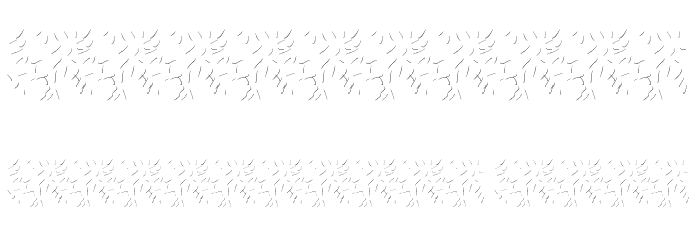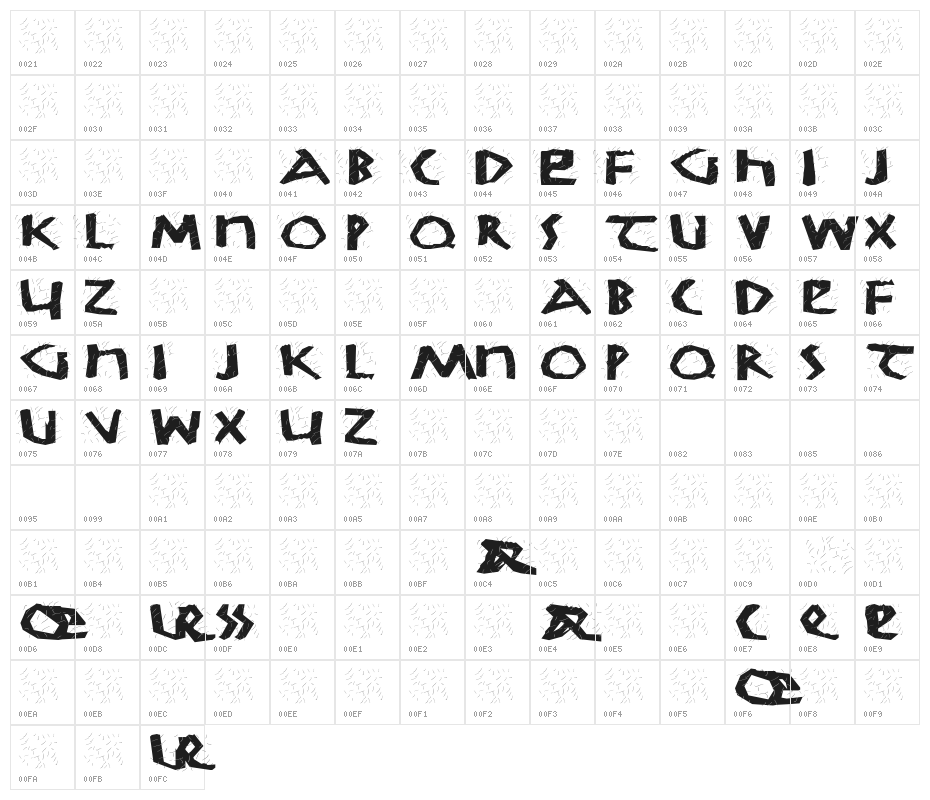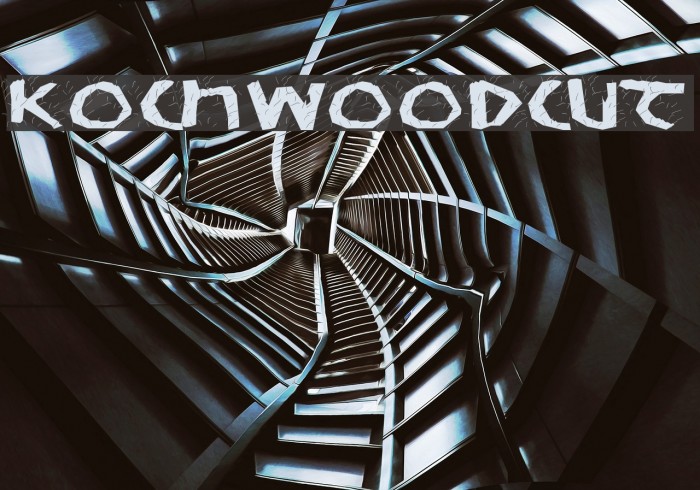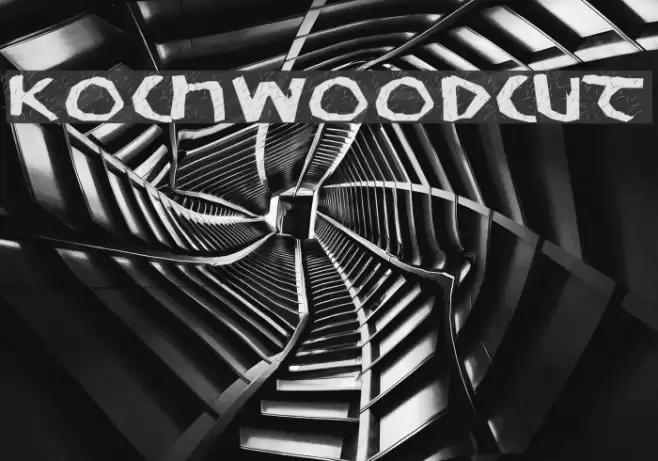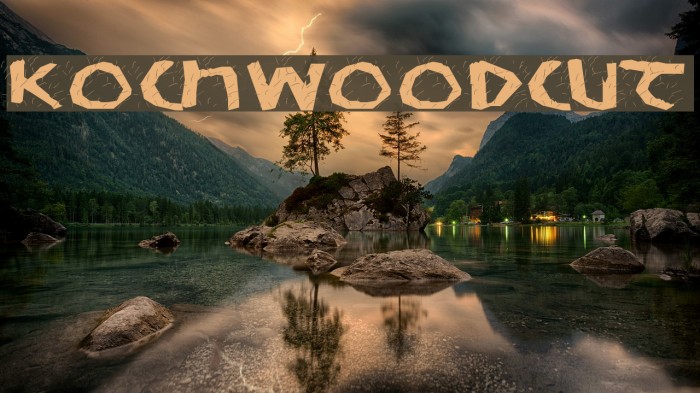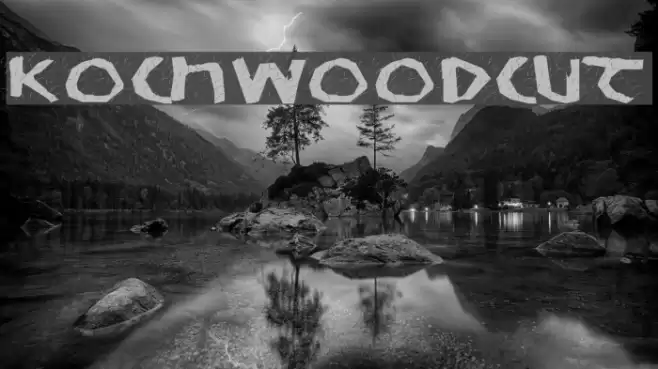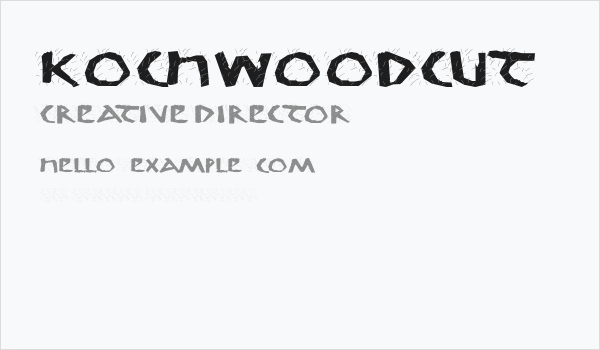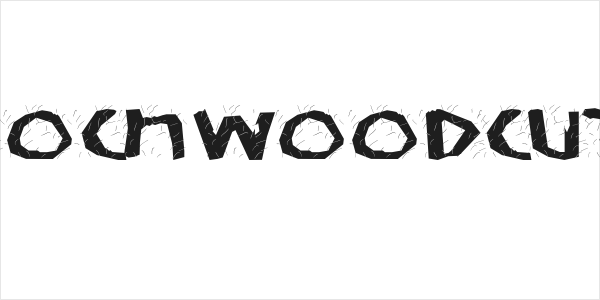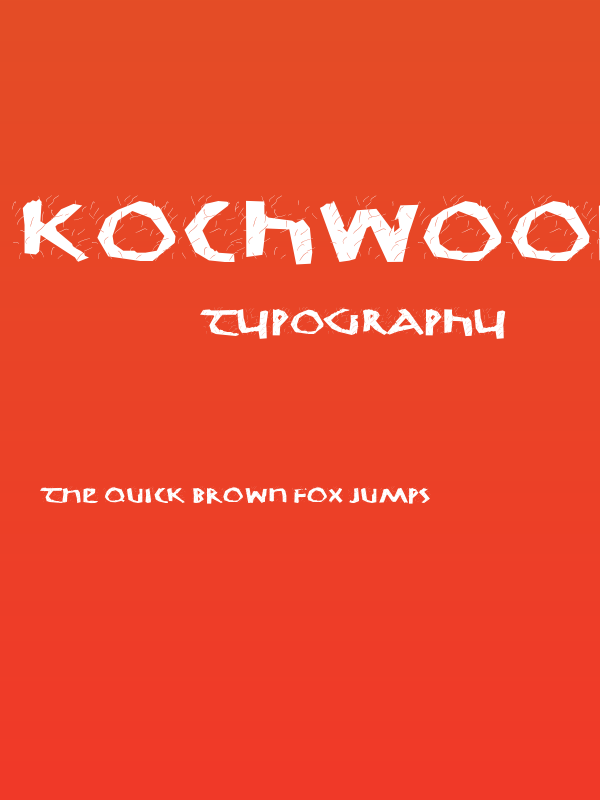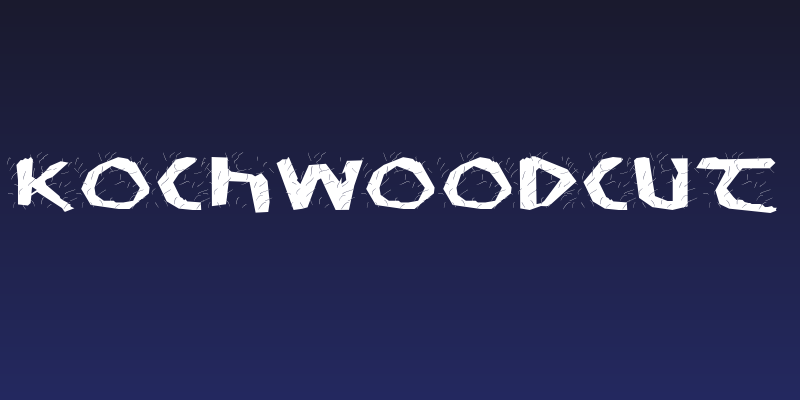
KochWoodcut Font
KochWoodcut Description
This font features a distinctive, hand-carved appearance reminiscent of traditional woodcut techniques. The characters are bold and angular, with a rough, textured edge that gives them a rustic and artisanal feel. The uppercase letters are particularly striking, with sharp angles and a slightly uneven baseline that adds to the handcrafted aesthetic. The lowercase letters maintain this rugged style, ensuring consistency across the typeface. The numbers and special characters are equally bold and textured, making them stand out in any design. This font's unique style is perfect for projects that require a touch of vintage charm and artistic flair.
| Proposed Projects | Ideal for posters, book covers, branding, and any design needing a vintage or artisanal touch. |